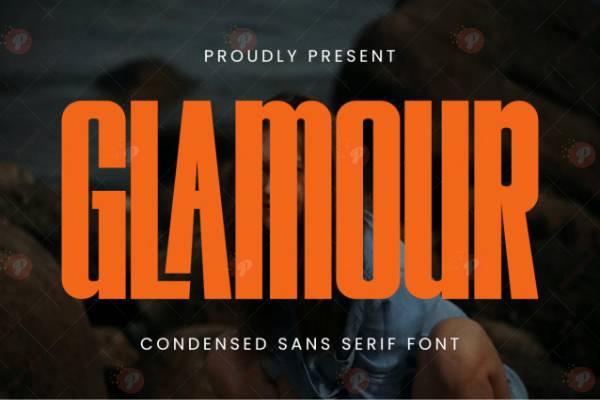
The Glamour Sans Serif Font Free is a stylish and elegant sans serif typeface designed for luxury branding, fashion magazines, packaging, and creative projects. With its sleek lines, balanced proportions, and sophisticated letterforms, this font adds a premium and modern aesthetic to any design.
Perfect for logos, editorial layouts, invitations, product packaging, social media graphics, and website headers, the Glamour Sans Serif Font Free blends modern minimalism with timeless elegance. Whether you’re creating for high-end brands or chic personal projects, this font delivers a polished and professional look.
Typeface: Sans Serif
Style: Elegant / Modern / Minimal / Luxury
Perfect for: Fashion Branding, Magazines, Invitations, Logos, Packaging, Web Design, Social Media